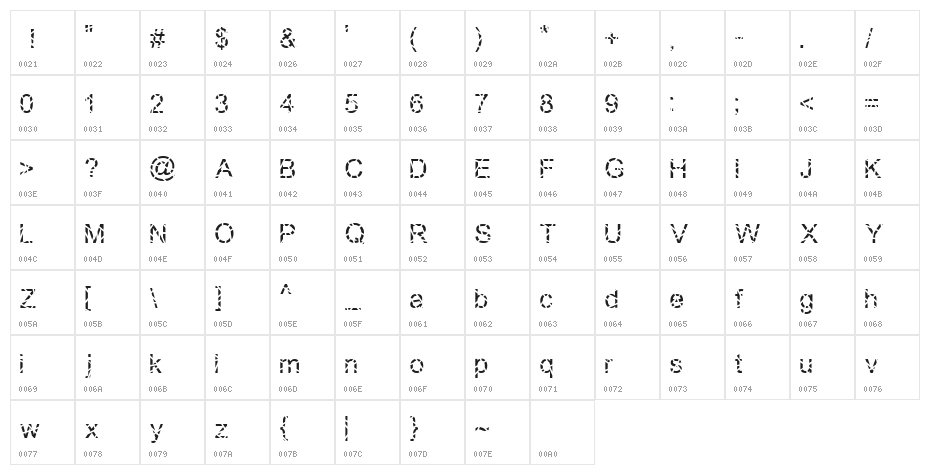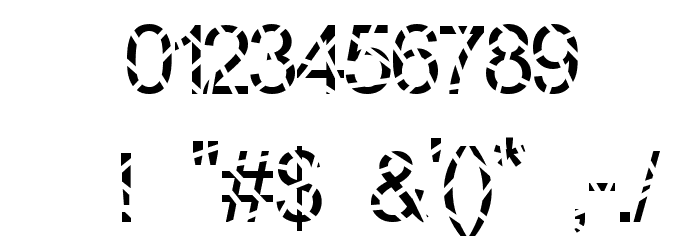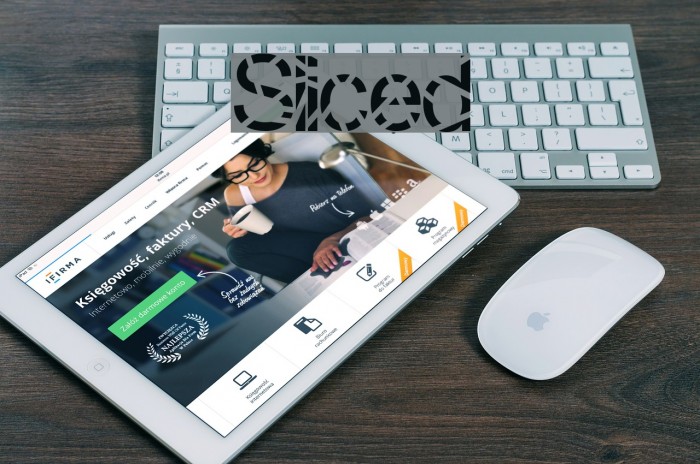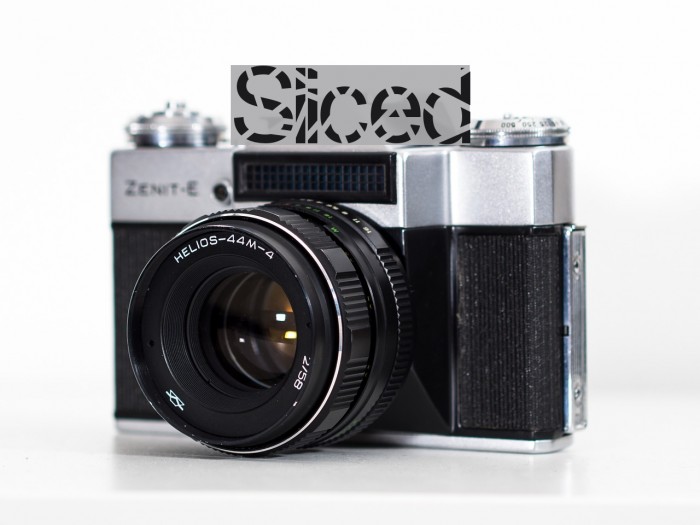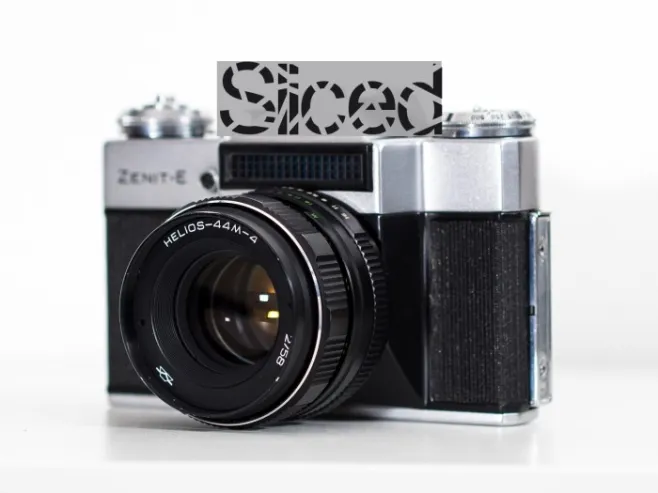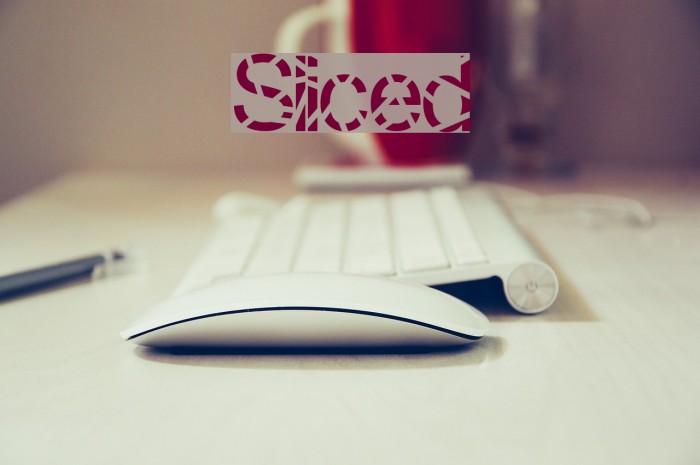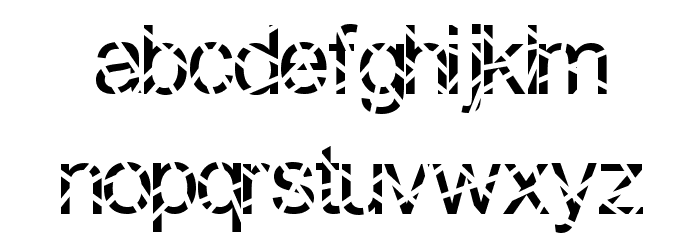
Sliced Font
Sliced Description
This font features a unique, sliced appearance, where each character is composed of fragmented sections that create a dynamic and edgy look. The design is bold and eye-catching, making it ideal for projects that require a modern and unconventional aesthetic. The uppercase and lowercase letters maintain a consistent style, with sharp angles and geometric cuts that add to its distinctive character. Numbers and special characters follow the same fragmented pattern, ensuring a cohesive visual theme throughout. This font is perfect for creative projects that aim to stand out and make a bold statement.
| Proposed Projects | Ideal for branding, posters, album covers, and any design needing a striking, modern aesthetic. |